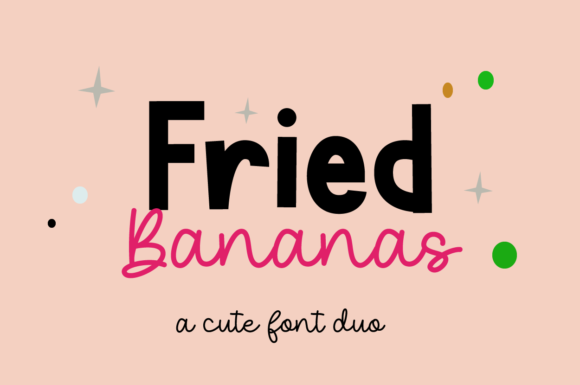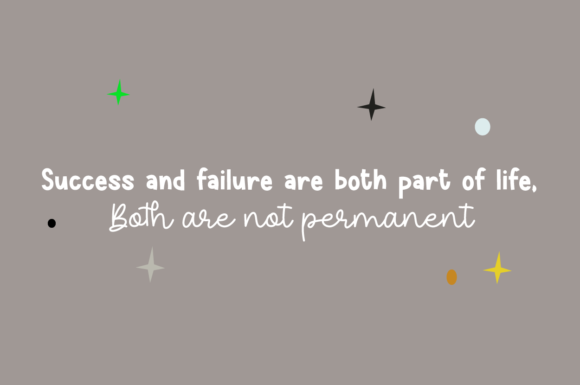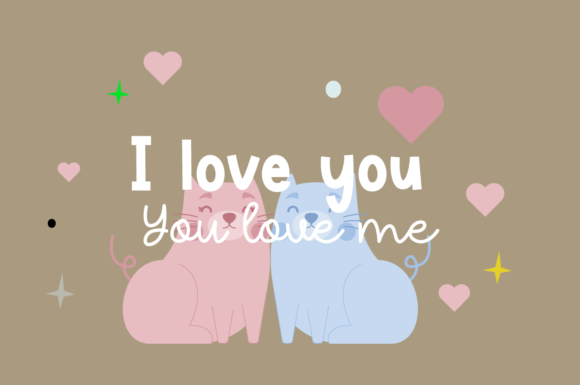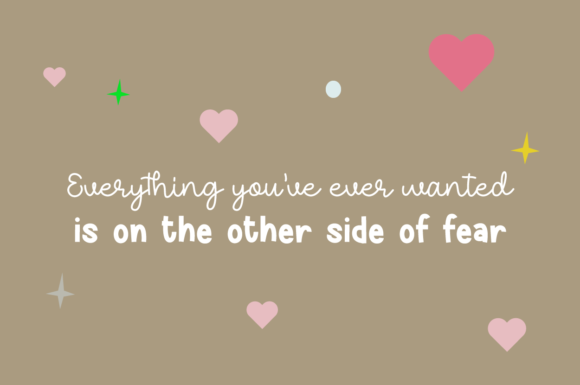
Fried Bananas Font: A Cute Duo for Playful Branding & Cricut Projects
About the Fried Bananas Font
Unleash your creativity with Fried Bananas Font, a versatile font perfect for a wide range of applications. Fried Bananas is a cute and friendly duo font (script and sans serif). This font is PUA encoded which means you can access all glyphs and swashes with ease!
Add it confidently to your favorite creations and let yourself be amazed by the outcome generated.
Fried Bananas’ playful script and friendly sans serif pair best in projects requiring a lighthearted and approachable feel. Ideal applications include children’s books, branding for cafes or bakeries, social media graphics, and packaging for sweet treats. Avoid using it for large blocks of body text or UI elements where readability is paramount; the script, in particular, may hinder comprehension.
Its inherent charm works well when paired with a clean sans-serif like Open Sans for a balanced contrast, or a geometric sans-serif such as Futura for a more modern feel. For a touch of elegance, consider pairing the script with a subtle serif like Garamond, utilizing the sans-serif for headlines and the script for accents.
The overall personality is undeniably cheerful and approachable, making it a strong choice for brands aiming for a youthful and inviting image.
Fried Bananas Font Usage Examples
Fried Bananas Font Example